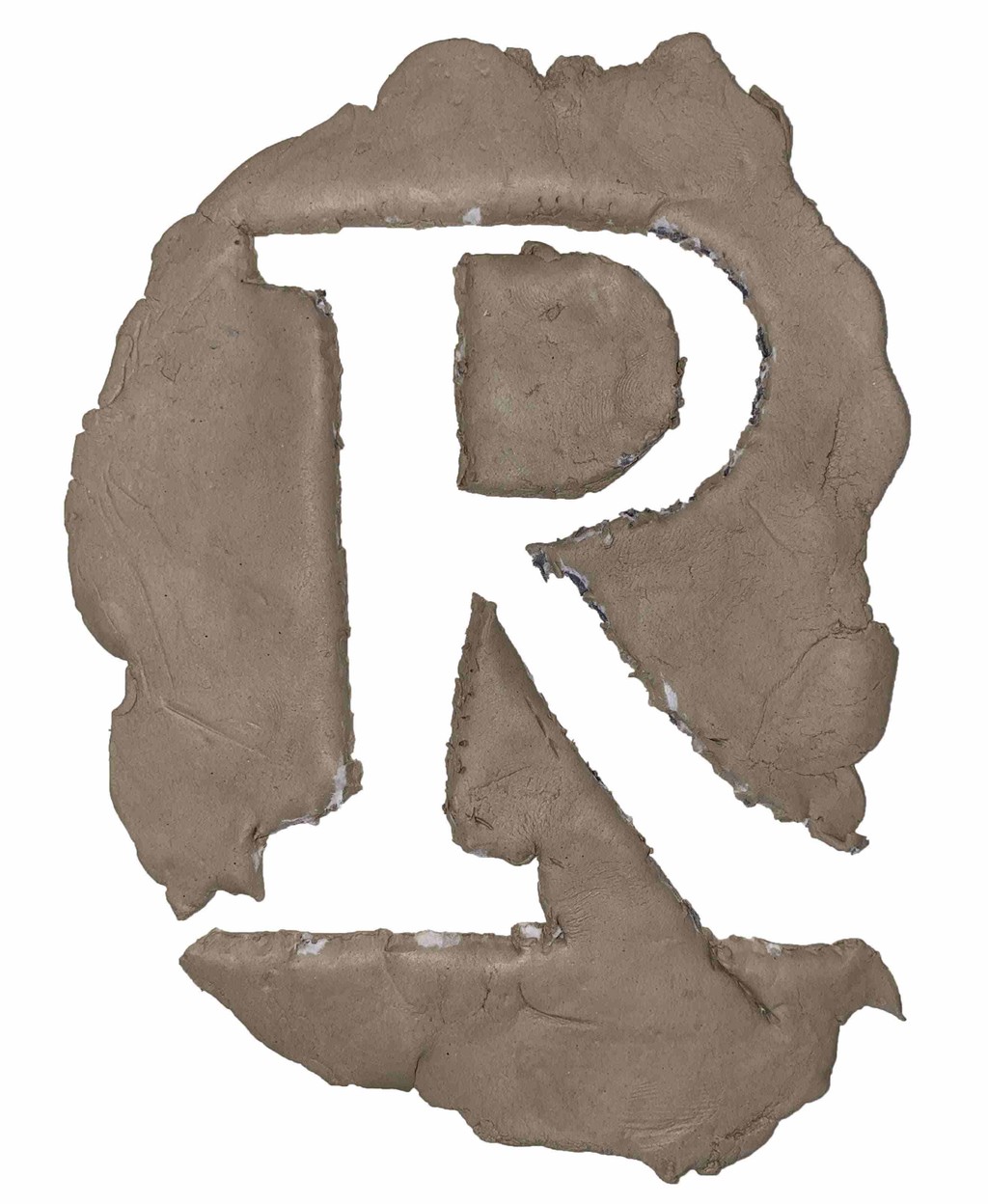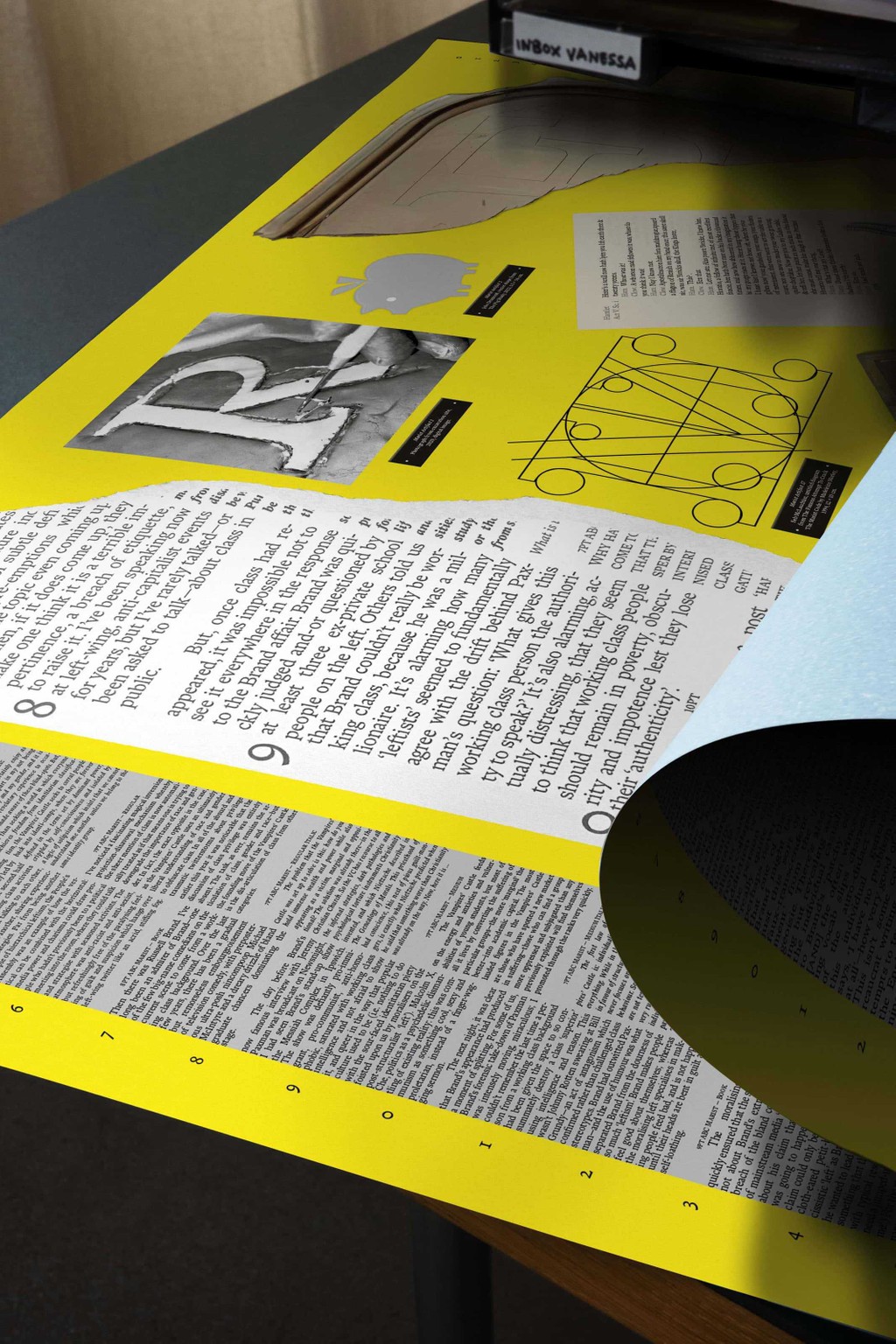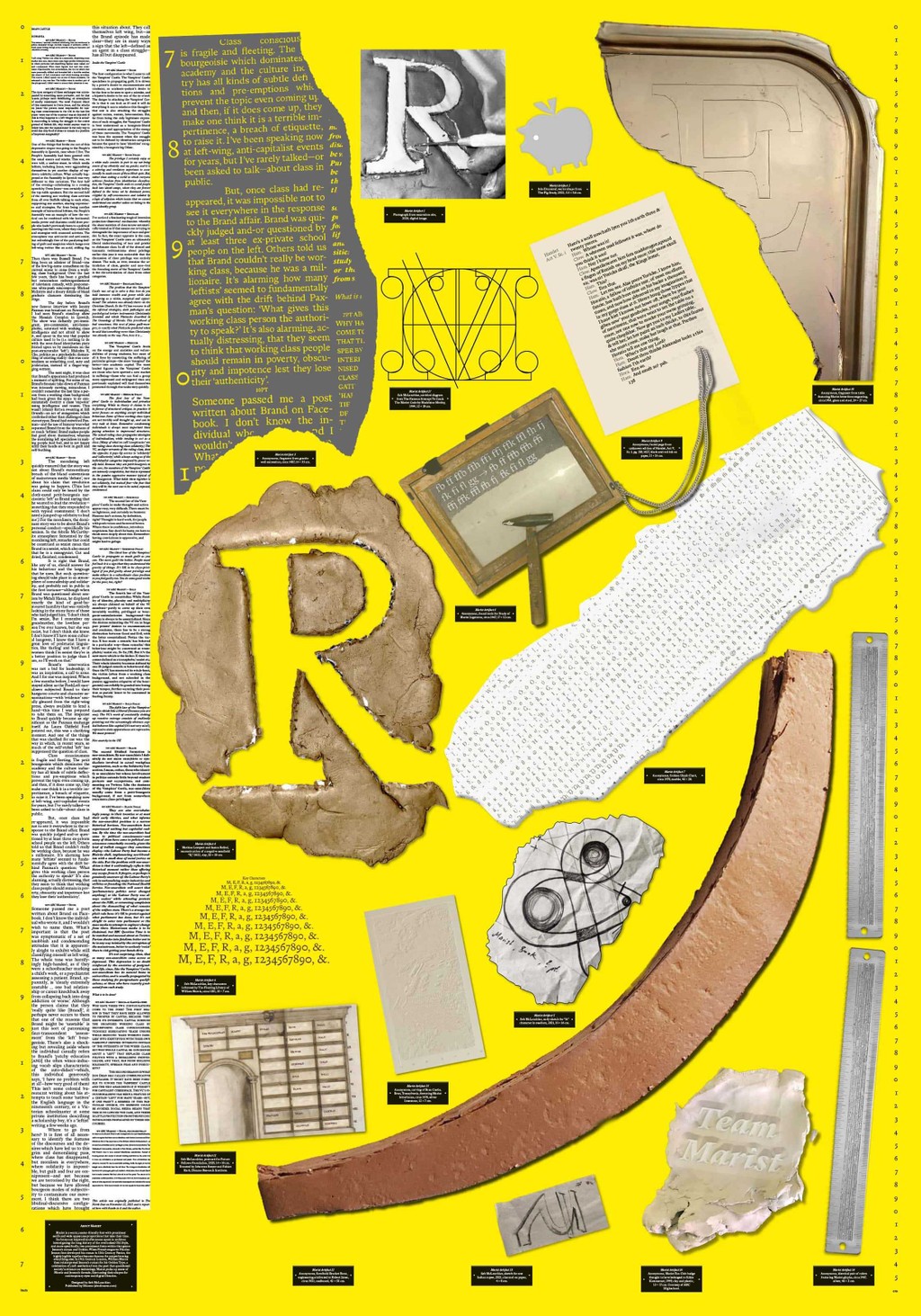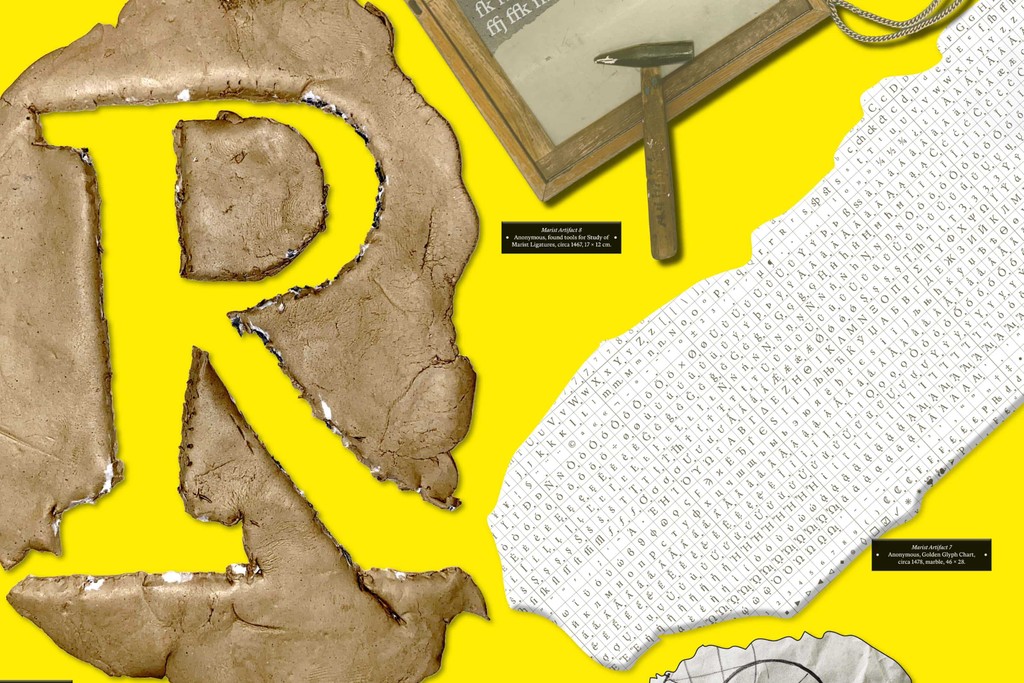
Marist Poster
A place where the mind has space for careful traveling.
Poster for Marist, a warm and robust re-examination of the Old Style genre first imagined by Nicolas Jenson in 1470. Imagine a quiet library with stained glass windows and stacks of books; this is where Marist first took root. A1 (59.5 x 84.1 cm), CMYK offset printed by Druckhaus Sportflieger in Berlin.
Typeface: Dinamo (Seb Mclauchlan)